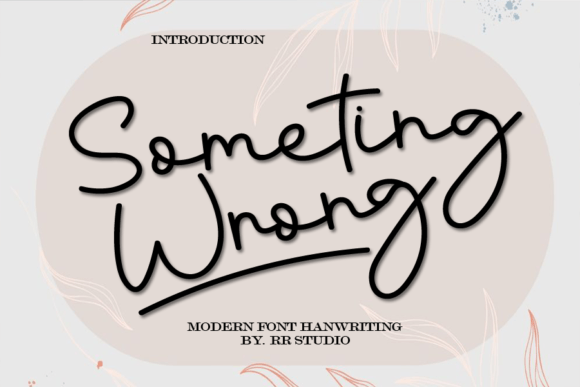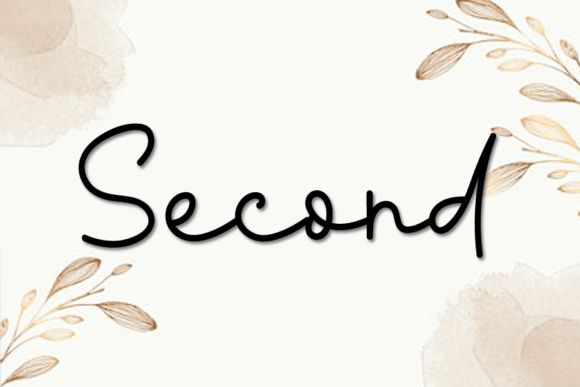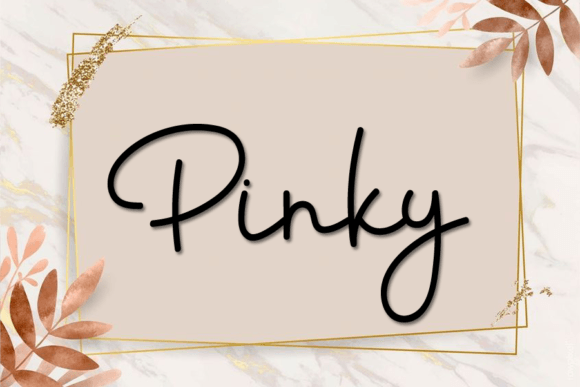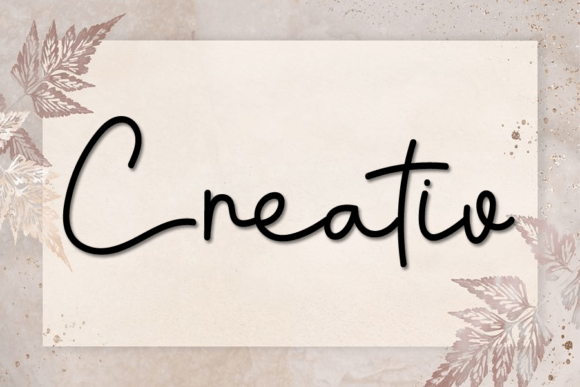
Something Wrong Font
Something Wrong is a classic and simple handwritten font, created in a random and freestyle.
It is suitable for a logotype, headline, corporate identity, brand identity, apparel industry, poster, music, movie, game, magazine, book, comic, cartoon, YouTube, Instagram, website, or any of your creative design projects.